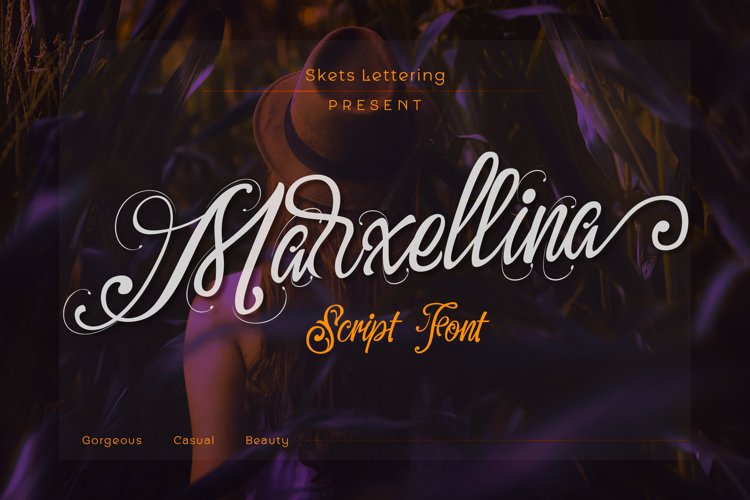
Marxellina Script
Marxellina
Marxellina Italic
Introducing it is the Marxellina font, which I made this time is a script type font, before making this font I researched the script font and wanted to make my own script font that can be used for a design to make it look more casual, beauty, nature, and provide professional impression in the designs made with this font, this font is perfect for your logotype, print design, invitation, signature, label, packaging, and other design needs